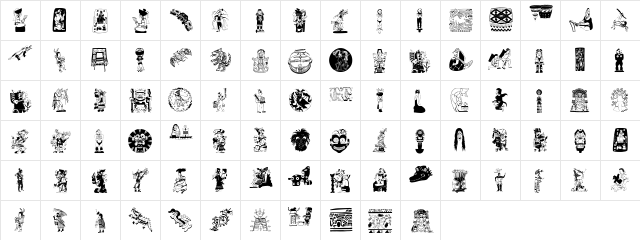
AmericaBeforeColumbus Regular
Design Context for AmericaBeforeColumbus Typeface
AmericaBeforeColumbus is a composed and adaptable typeface that performs quietly and consistently across a wide range of design contexts.